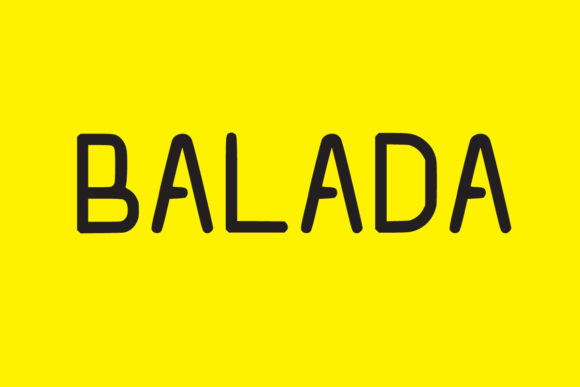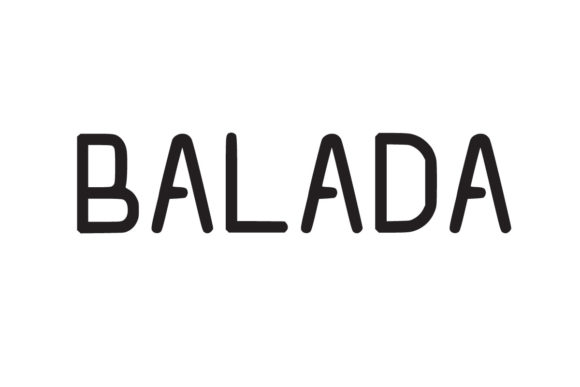
What is Balada Font?
Balada is a clean and modern looking display font, ideal for writing web designs, business cards, or pretty much anything else that requires a unique touch. Its sleek lines and elegant curves make it perfect for designers, crafters, and creative hobbyists looking to elevate their projects.
An Honest Review of Balada Font
- ✨ Clean and modern design: Balada’s sleek lines and elegant curves make it perfect for modern designs.
- ✅ Highly versatile: Use it for web designs, business cards, posters, or any project that needs a unique touch.
- 💡 Excellent readability: Even at small sizes, Balada remains clear and easy to read.
While Balada is an excellent font, it’s not perfect. Here are a few things to keep in mind:
- 🤔 Limited use for body text: Due to its elegant design, Balada might not be the best choice for long blocks of text.
- ⚠️ Some characters may require manual kerning: As with any font, you might need to adjust kerning for certain character combinations.
The Designer Behind Balada
While the origins of Balada are unclear, it’s likely that the designer was inspired by modern typography trends and a passion for clean, elegant design. The result is a font that’s both timeless and trendy – a rare feat in the world of typography! 💫
Q: Is Balada suitable for body text?
A: While Balada is an excellent font, it’s primarily designed for display use. For long blocks of text, you might prefer a font with better readability.
Q: Does Balada support OpenType features?
A: Yes, Balada supports OpenType features, including stylistic alternates and glyphs. Experiment with these features to add some flair to your text.